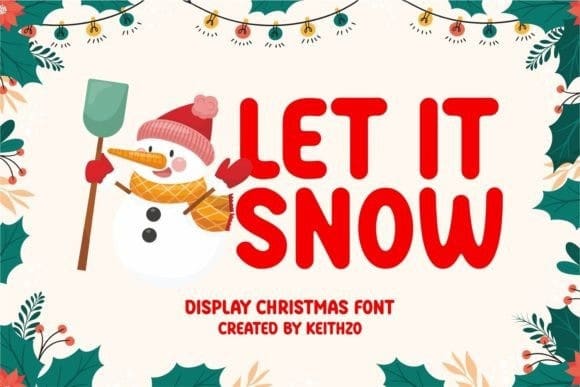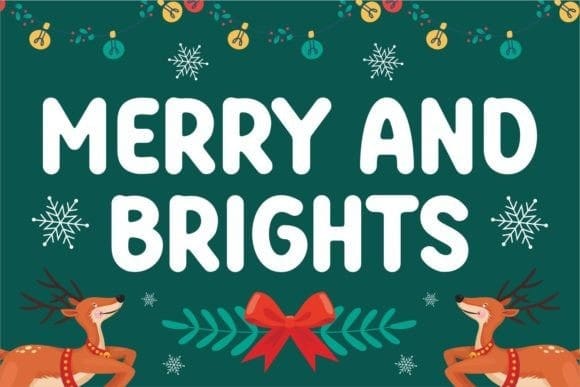
Christmas Brights Font
Christmas Brights Font is a lively and bold display font that radiates the festive spirit of the holiday season. With its playful and vibrant style, it’s the perfect choice for adding a touch of Christmas cheer to your designs, whether it’s holiday cards, party invitations, or seasonal decorations.